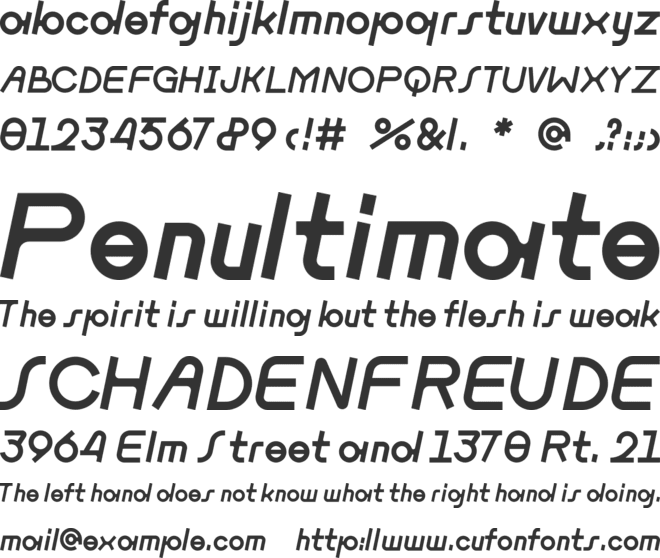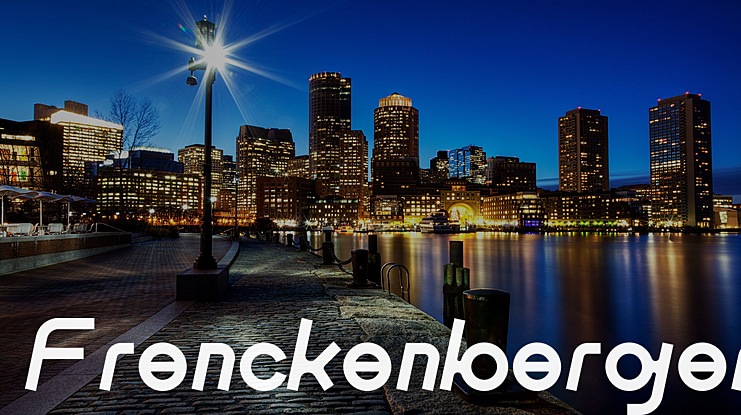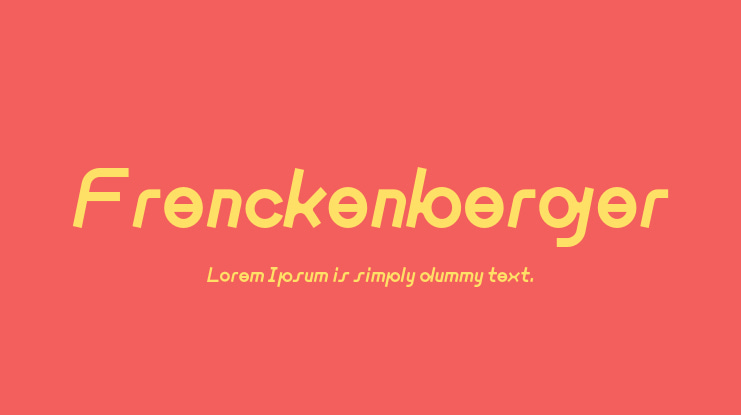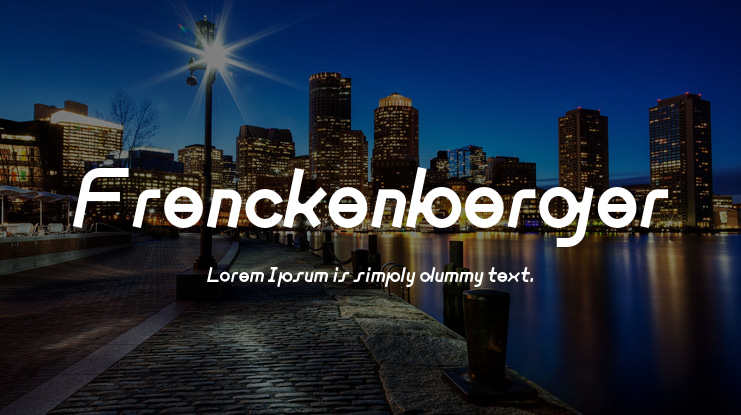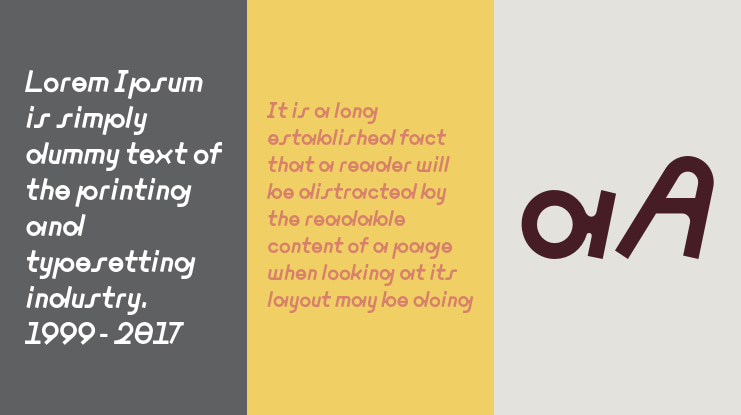
Frenckenberger Font
This font is an old fashioned interstellar sci-fi with a twist of good humor geometric display font. The overall inclination of 12° is used to generate a more light and dynamic letter shape in order to better portray the relaxed feeling.